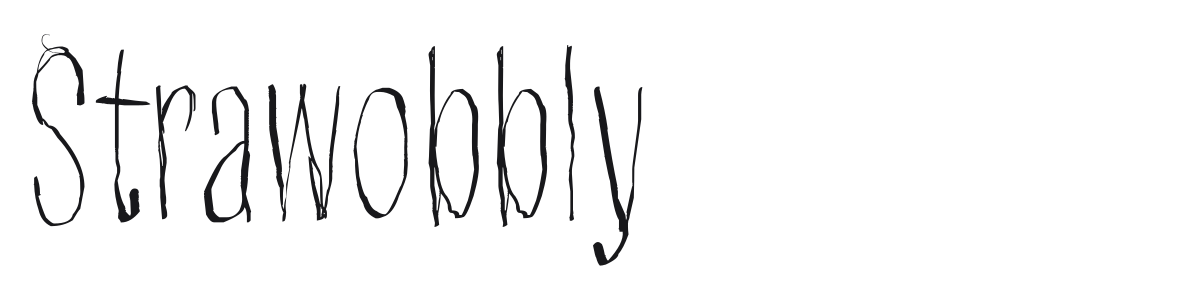
Strawobbly
Strawobbly is a thin, condensed handwritten face from junkohanhero with a loose, wobbly baseline that gives every line of text a charmingly unsteady quality. The narrow letterforms stay light and legible despite the wobble, reading more whimsical than sloppy. Good for casual branding, packaging, or anywhere you want type that feels like it was scribbled with a slightly shaky hand.